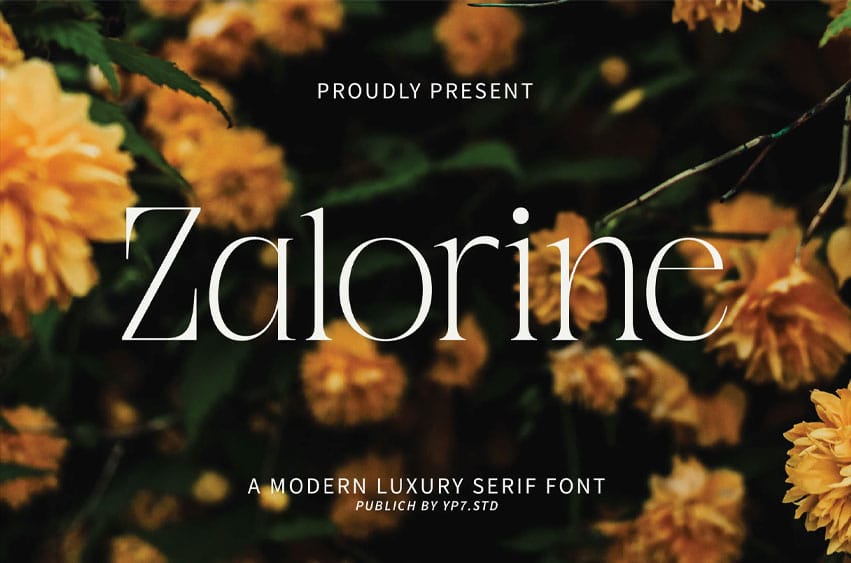
Zalorine Font is suitable for flyers, posters, novels, letterheads, or any design requirements you want to be awesome.
It will certainly amaze your readers.
Zalorine